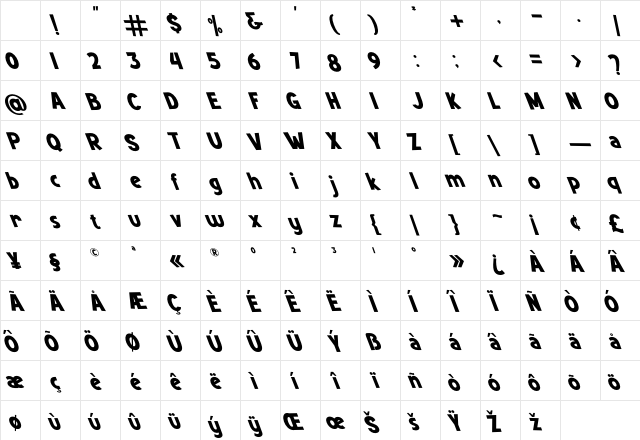
Mutchin Oblique is a composed and adaptable typeface that performs quietly and consistently across a wide range of design contexts. The slanted form adds forward momentum and visual energy.
Pro Tip: Use Mutchin Oblique for emphasis, pull quotes, and subheadings where its slanted energy can add rhythm to the layout.